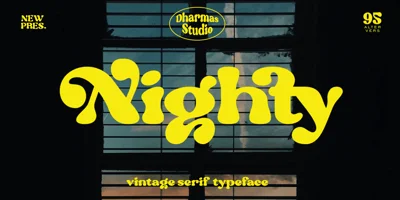
Nighty Font
Nighty Font is perfect for nightclub branding, evening entertainment venues, luxury hotel bars, midnight event invitations, sleep wellness products, moonlight photography studios, and sophisticated after-dark lifestyle brands. This mysterious typeface captures the allure and sophistication of nighttime experiences, bringing elegant darkness and nocturnal charm to any design project celebrating evening elegance.
What makes Nighty Font exciting is its captivating blend of midnight mystery and sophisticated elegance that perfectly embodies the enchanting atmosphere of nighttime adventures. The font features smooth letterforms with subtle curves and shadow-like details that evoke the graceful movement of moonlight and the intimate ambiance of evening gatherings. Its seductive character creates an atmosphere of luxury and exclusivity while maintaining excellent readability for both promotional materials and upscale venue applications.
The Nighty Font family includes multiple weights from light to bold, complete with shadow variations and nocturnal ornamental elements. The character set features elegant ligatures, moon symbols, evening alternates, and sophisticated decorative accents that enhance the font's nighttime appeal. Advanced OpenType features provide creative flexibility for international hospitality brands and multilingual evening entertainment applications.
Whether you're designing nightlife brand identities, creating event materials, or developing luxury after-dark content, Nighty Font provides exceptional sophistication and versatility. This alluring typeface transforms ordinary text into mesmerizing nocturnal experiences that captivate sophisticated audiences while establishing memorable brand recognition in competitive nightlife and luxury hospitality marketplaces.